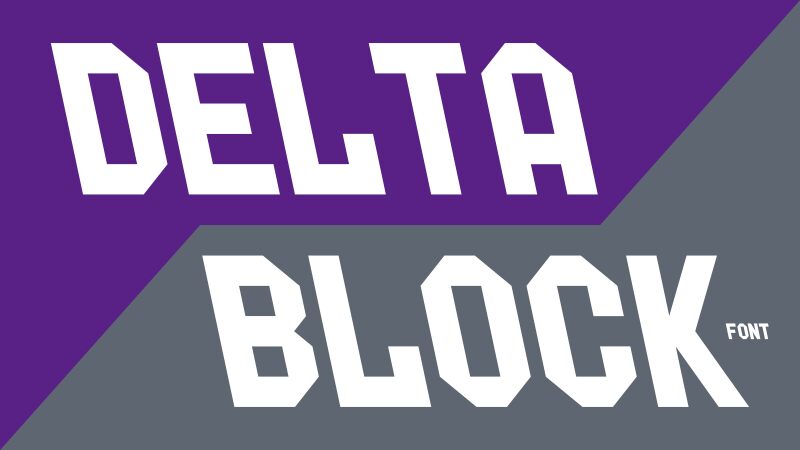
Delta Block Italic
Delta Block Italic, from the Delta Block family, is a tour-de-force in typography that harkens back to the robust aesthetics of old school design. Crafted by GGBotNet, this display font boasts a bold weight paired with a condensed width that commands attention. The italicized stance adds dynamism to its character, making it an ideal choice for projects that demand a blend of retro charm and contemporary boldness.
Its condensed form factor allows for impactful headlines and branding elements where space is at a premium but expression cannot be compromised. The boldness of Delta Block Italic ensures that it stands out in any context, from editorial spreads to digital banners. Its old school flair injects personality into creative endeavors, perfect for designers seeking to infuse their work with a nod to classic style while maintaining modern sensibilities.
Whether utilized in graphic posters or as part of an avant-garde fashion label's visual identity, Delta Block Italic is poised to leave an indelible mark across diverse creative landscapes.